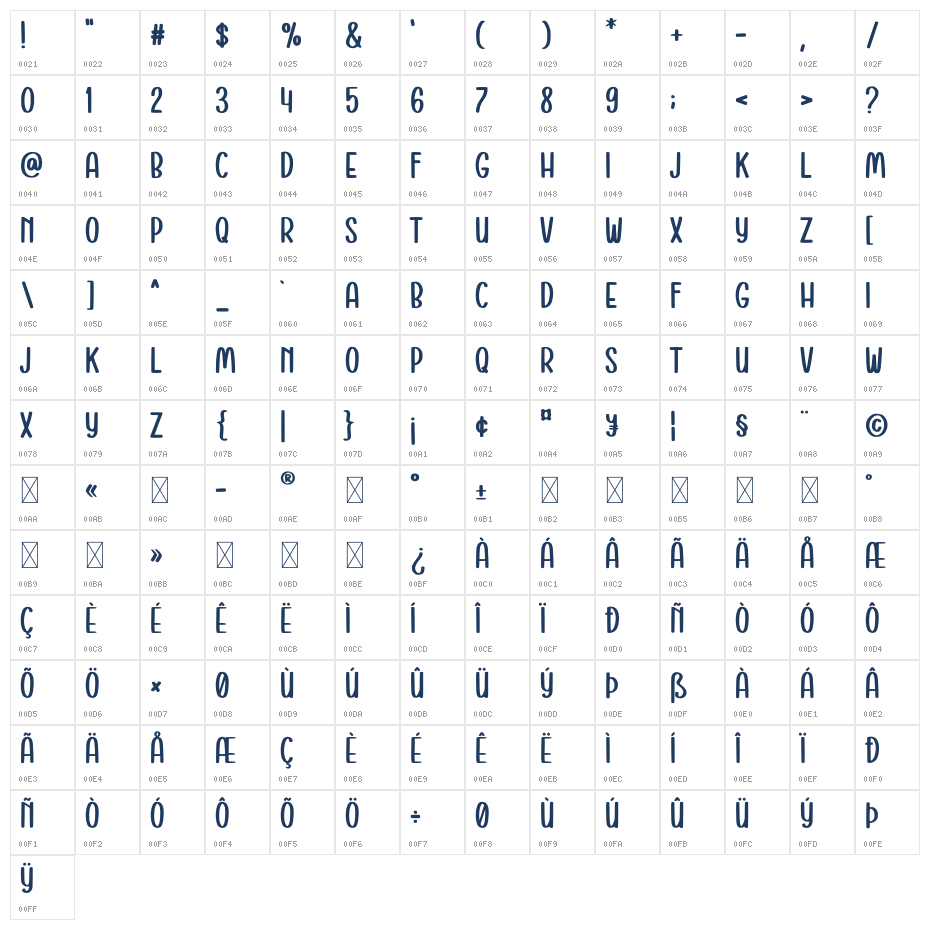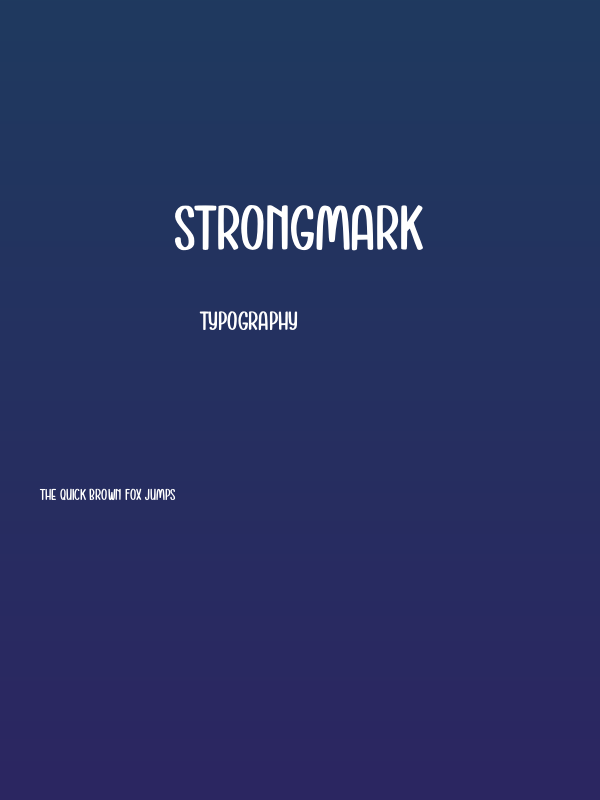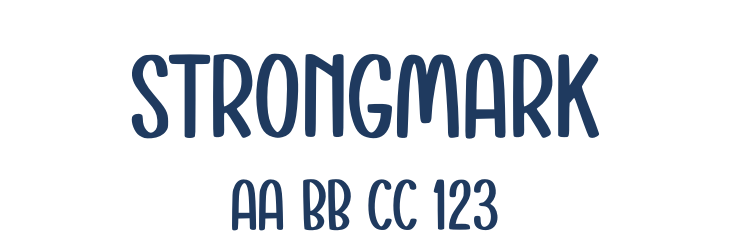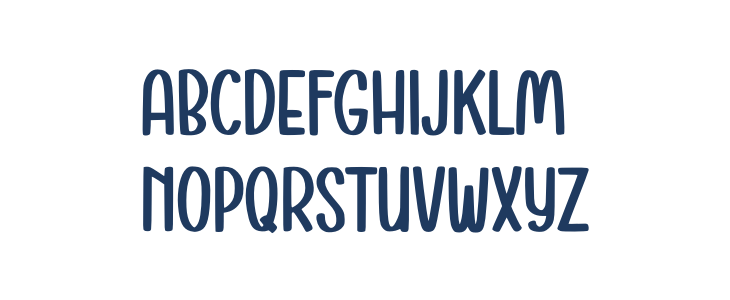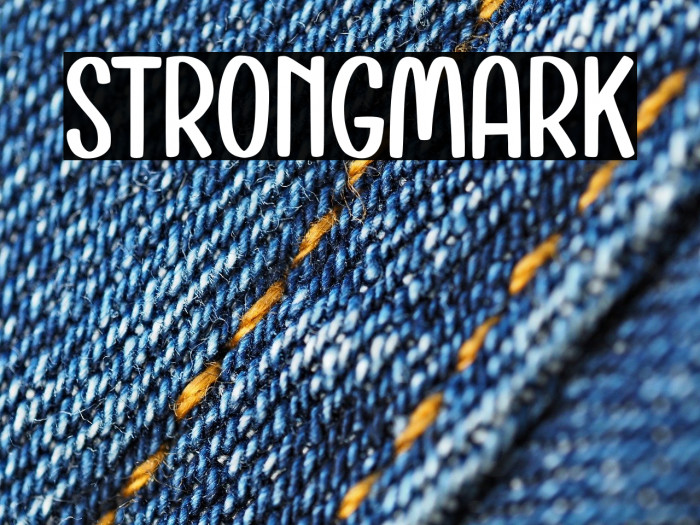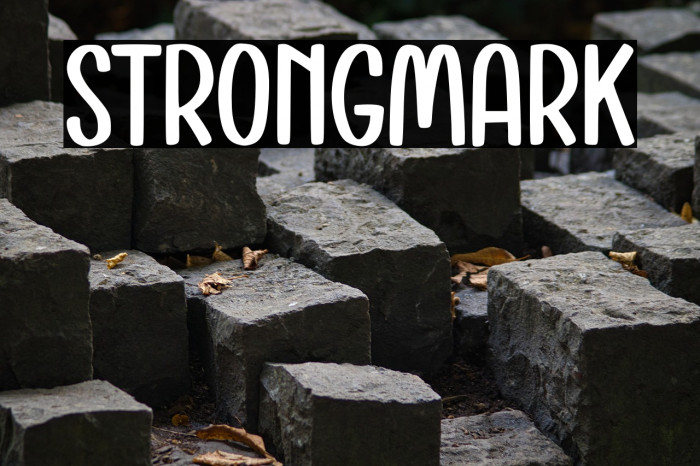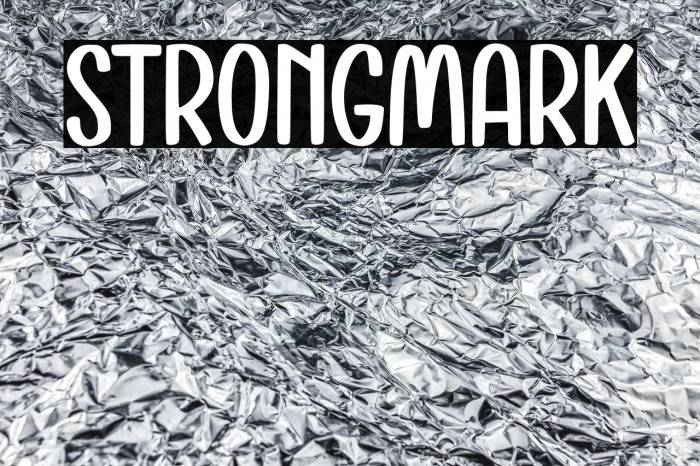
Strongmark Font
Strongmark Description
A playful, rounded sans-serif font with a casual and friendly appearance.
| Overall Style | Casual, Friendly, Modern |